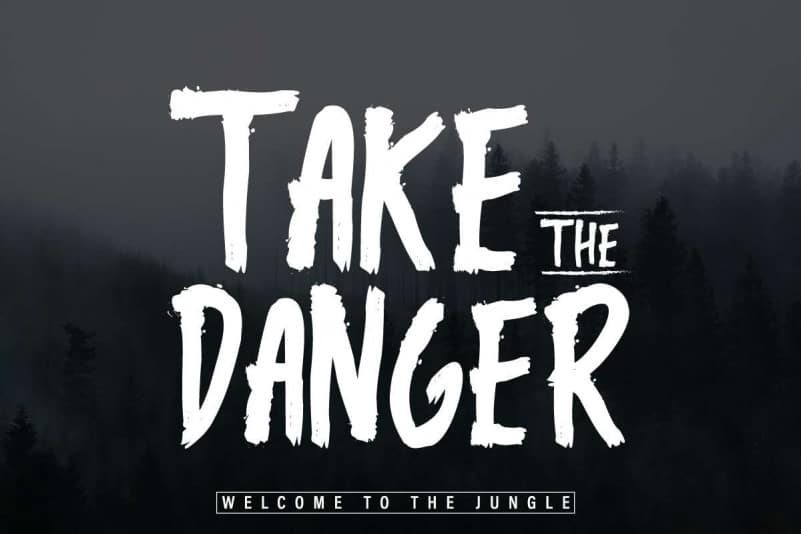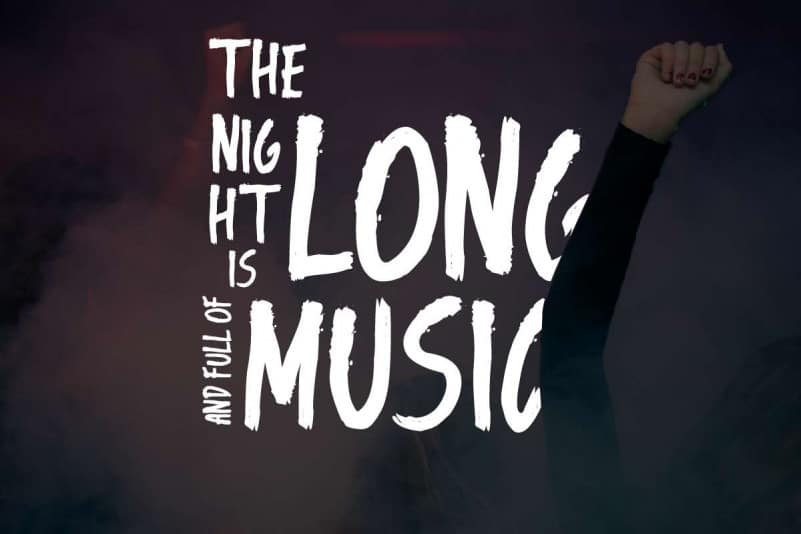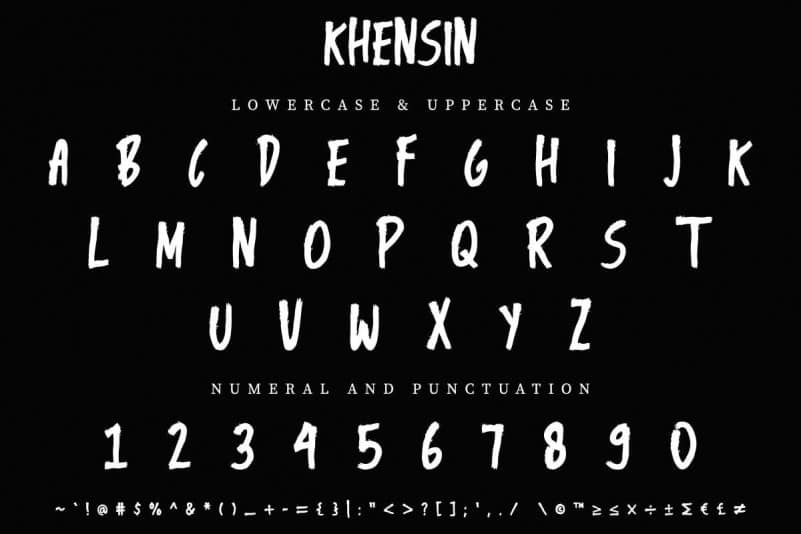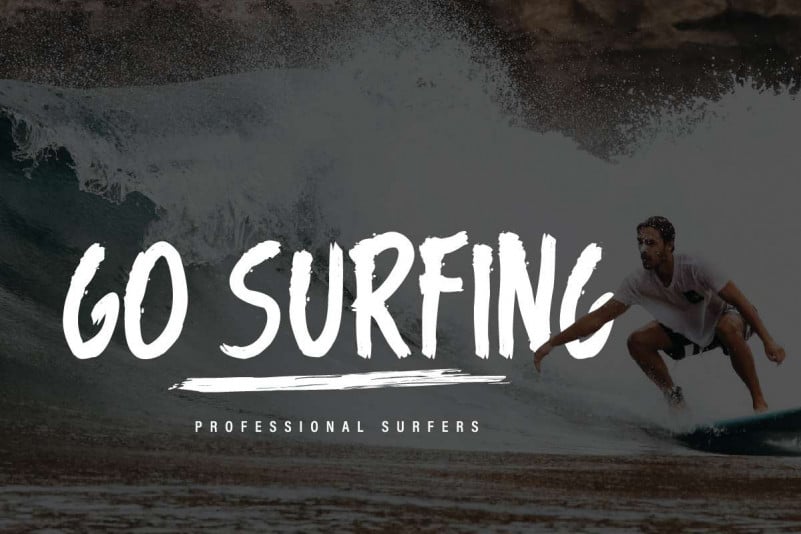
Khensin Brush Font
Khensin Brush Font is an exclusive rough brush script typeface with unique brush style. This font has a stunning characters set, perfectly managed with well spaced and kerning. The theme style of this font will horror, movie, games, vintage and classic brush style.
Khensin Brush Font will be great for any projects including : branding, logo, stationery, business card, signage, flyer, brochure etc. Almost all industries will be match for this typeface: events, music video, makeup artist, travel, promotions, musician, magician etc